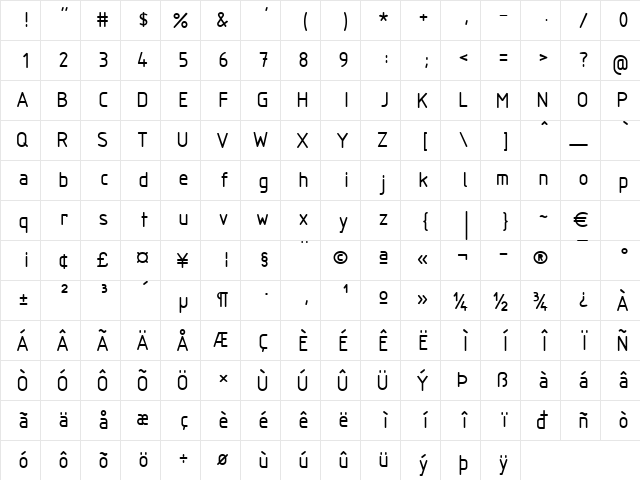
ISOCTEUR Regular
Design Context for ISOCTEUR Typeface
ISOCTEUR takes a measured approach to typography — its balanced proportions and neutral character make it a reliable workhorse for both digital and print work.